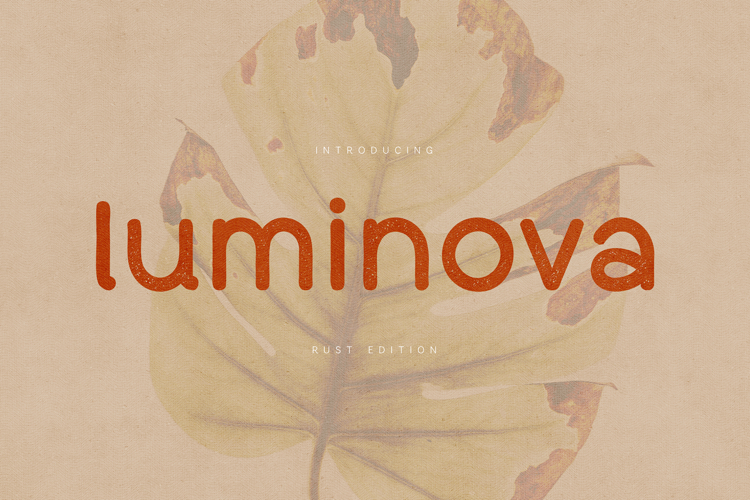
Luminova Modern Rounded Sans Serif Font
Luminova is a modern rounded sans serif font crafted with soft curves, balanced proportions, and a warm contemporary feel. Its smooth terminals and clean geometric structure create a friendly yet professional aesthetic, making it perfect for both bold headlines and refined body text.
Designed for versatility, Luminova works beautifully in branding, editorial layouts, packaging, posters, social media graphics, and web design. The subtle rounded details give the typeface a human touch while maintaining clarity and strong visual presence.
Luminova includes uppercase, lowercase, numerals, punctuation, symbols, and extensive multilingual support, ensuring flexibility across global design projects.
Whether you’re building a fresh brand identity or designing minimal typography compositions, Luminova delivers softness with strength.